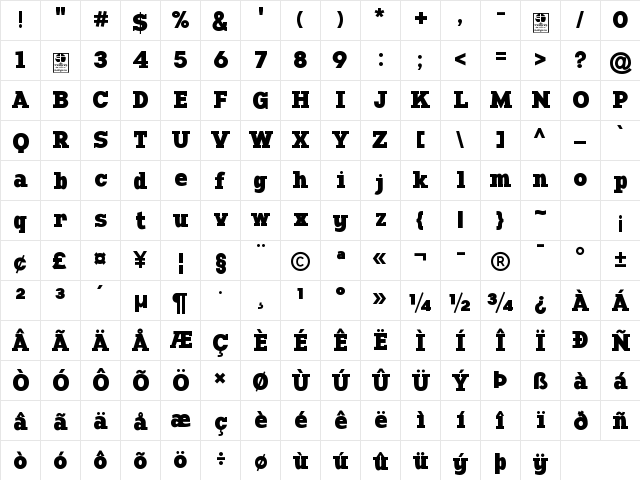
Manti Slab Black Demo Regular
Design Context for Manti Slab Black Demo Typeface
Manti Slab Black Demo features prominent, blocky serifs that give it a confident, grounded presence — equally at home in editorial settings and bold branding work.
Suited to magazines, political campaign materials, bold packaging, and any setting where authority matters.
Pro Tip: Use Manti Slab Black Demo for headlines and subheadings where its slab serifs can make an impression. It also holds up well in mid-size body copy thanks to its sturdy construction.